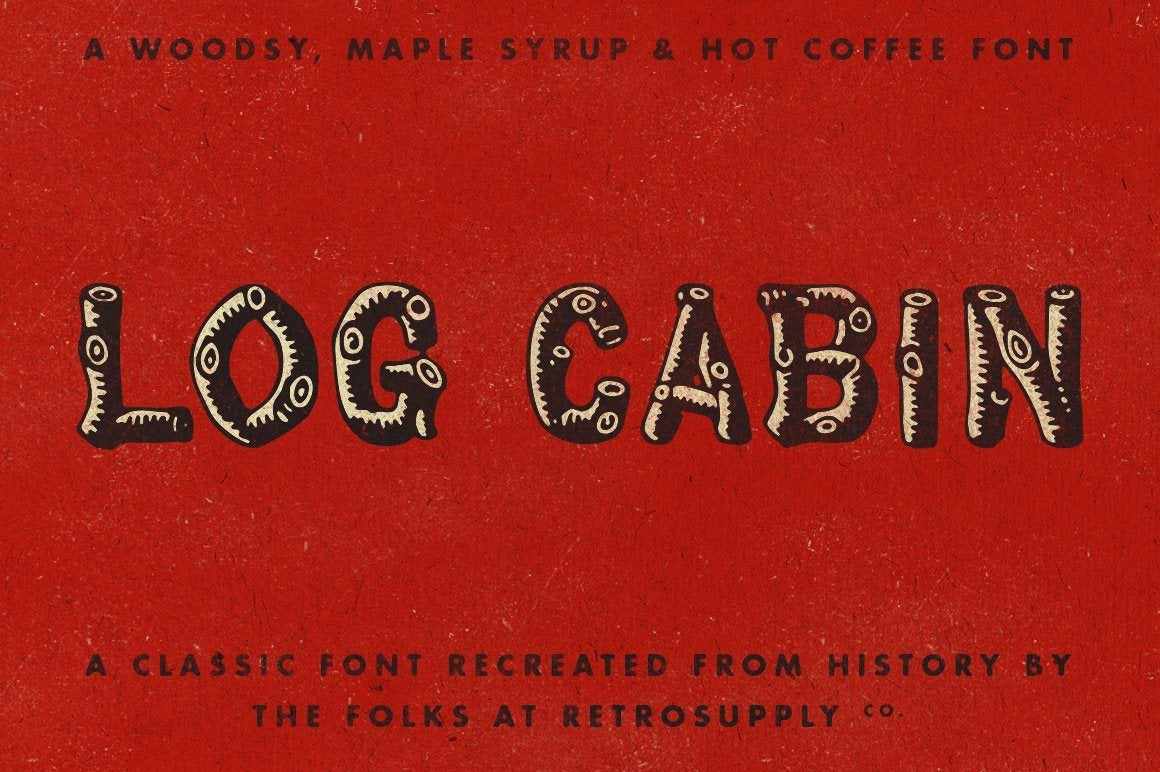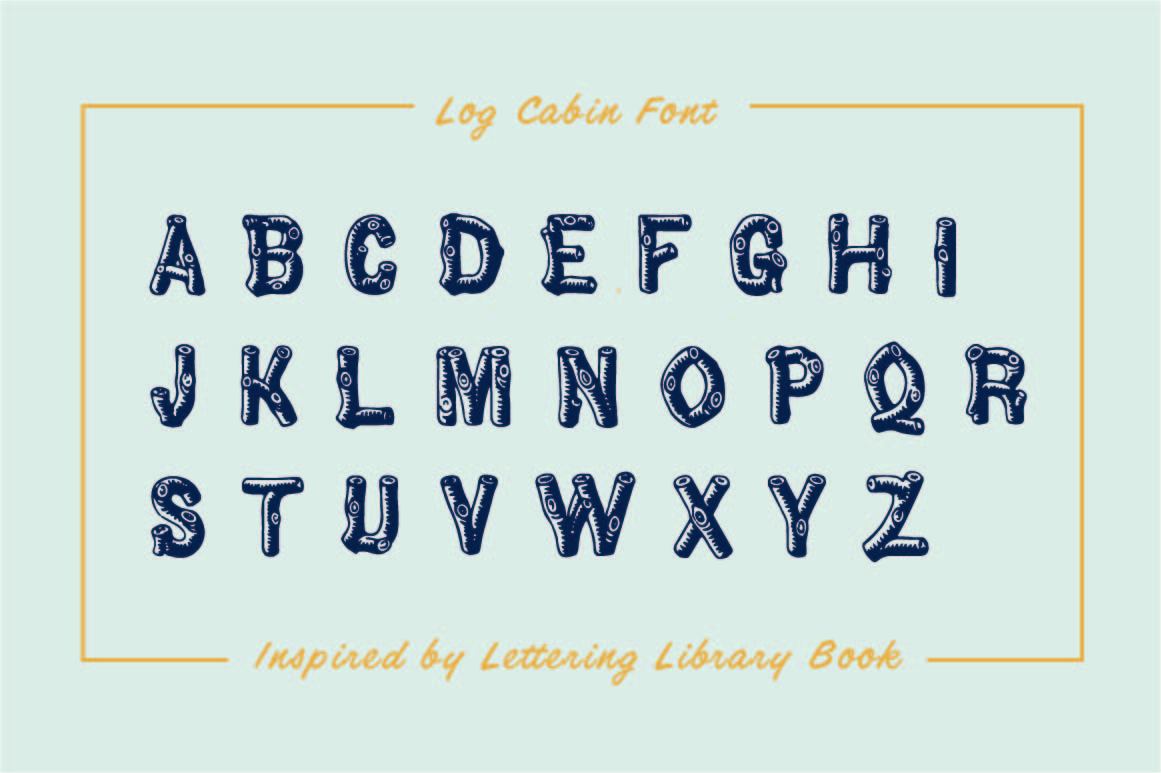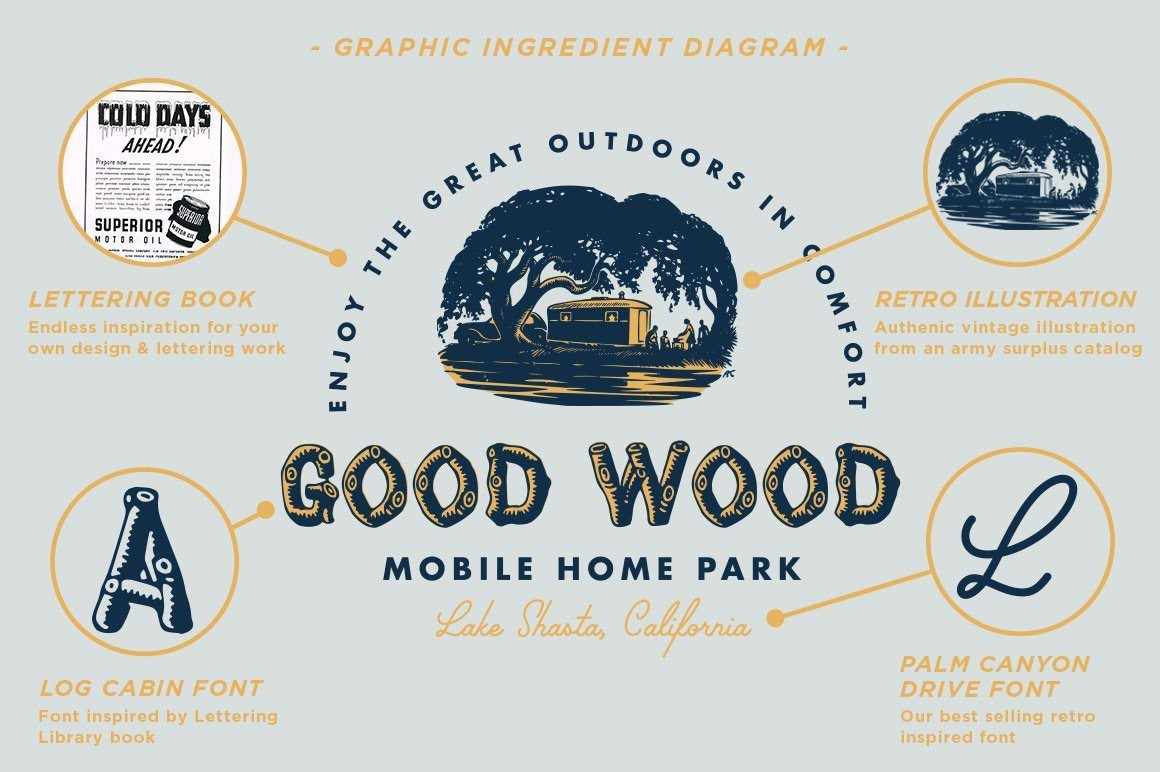
Log Cabin Font
The Classic Wood Font
This font first emerged in the early 20th century. Originally sold in direct mail stock image catalogs to small businesses, this found has been used heavily in camping, outdoor, and national park advertising.
• Classic Log Cabin wood font.
• Includes uppercase characters, numbers, and limited punctuation.
• Ideal for outdoor themed projects, wood signs, and capturing the nostalgia of 1950 summers in America.